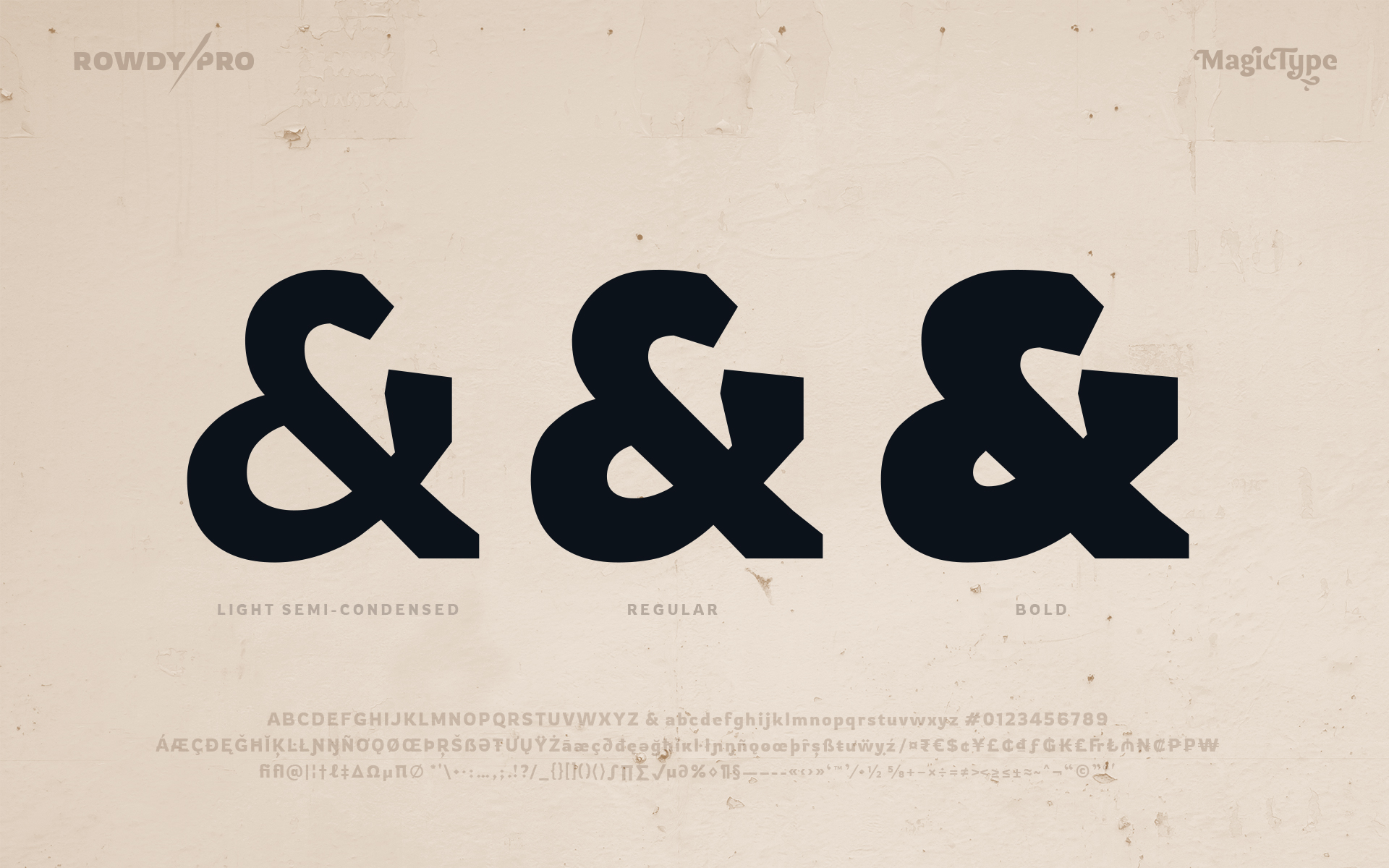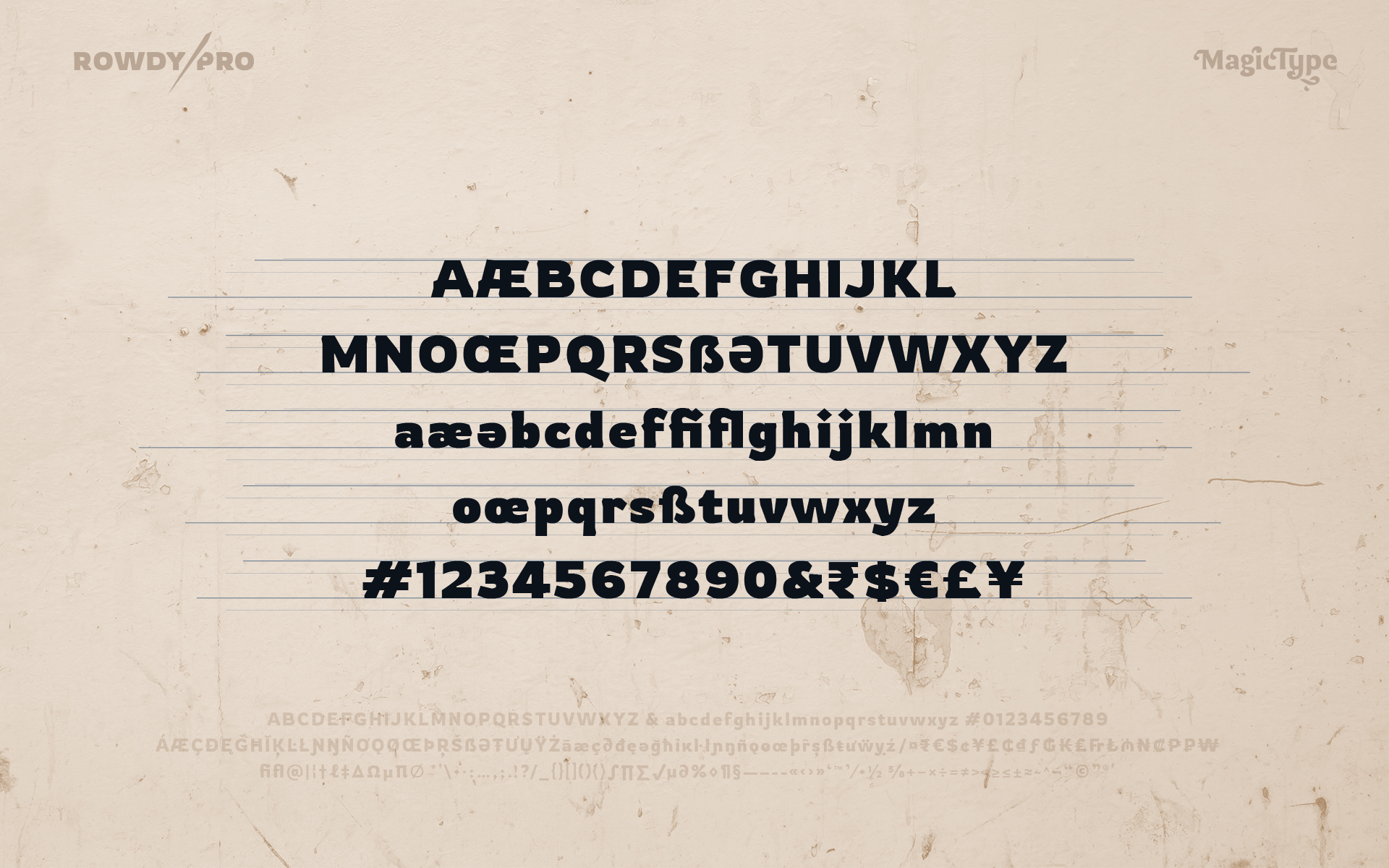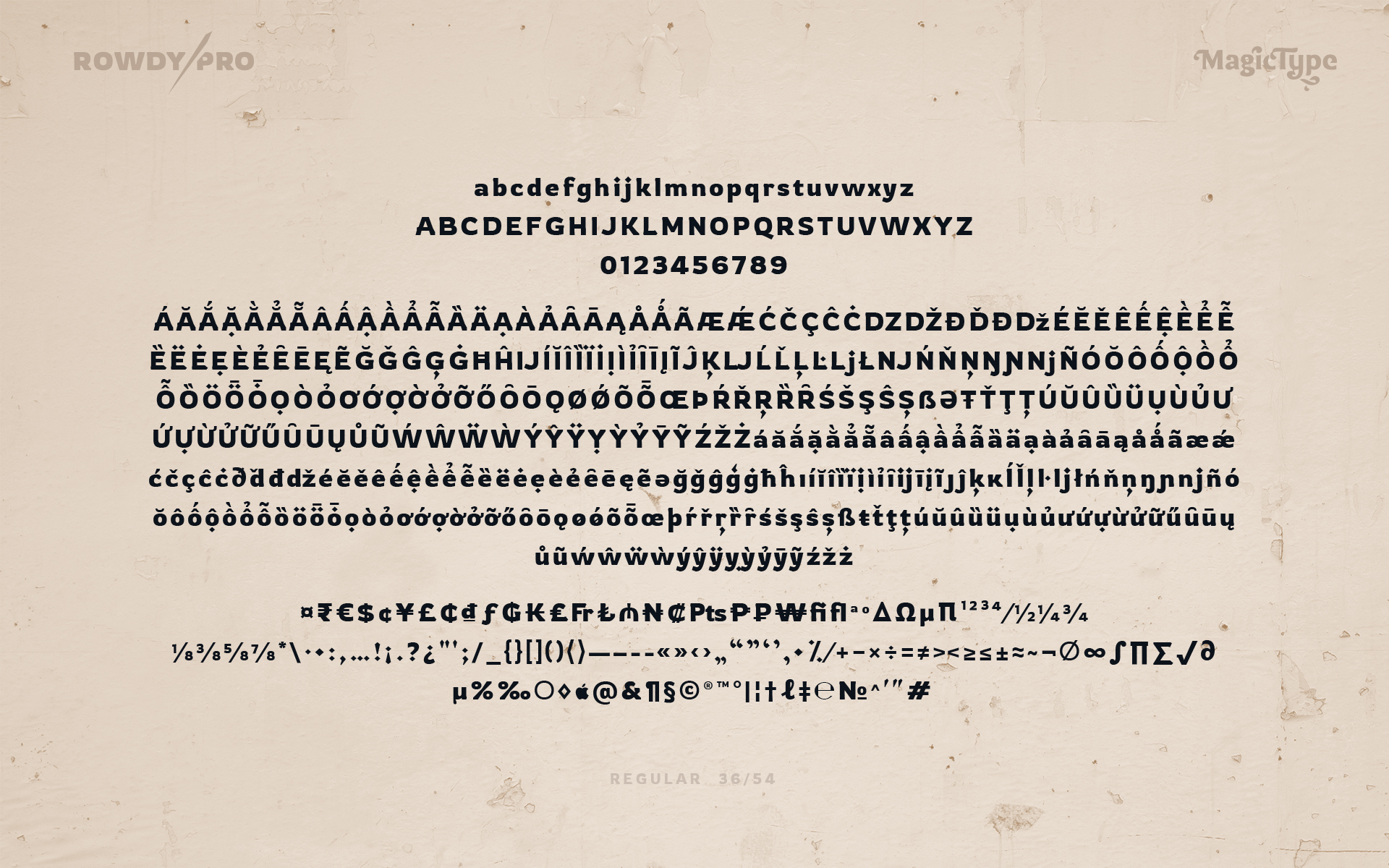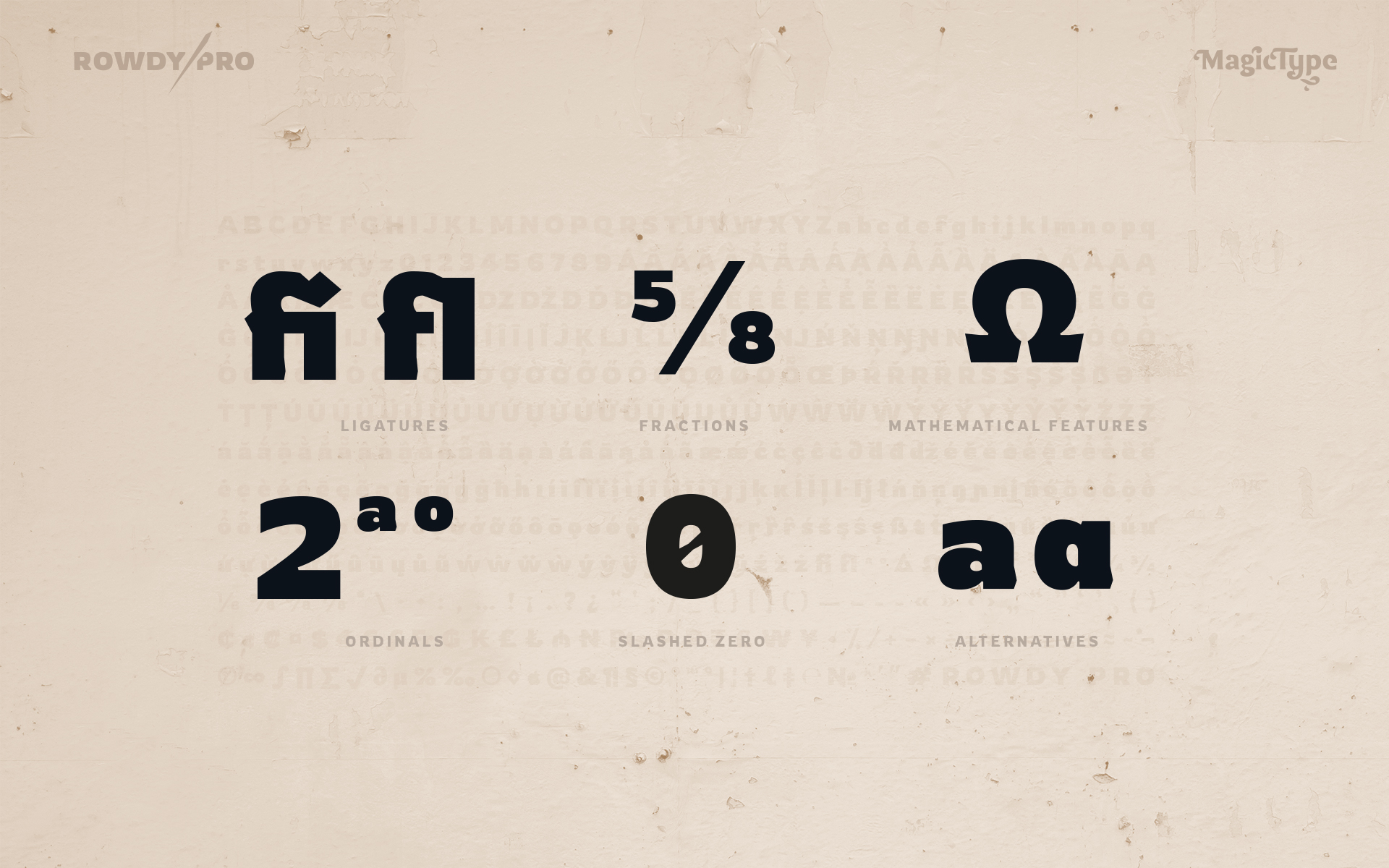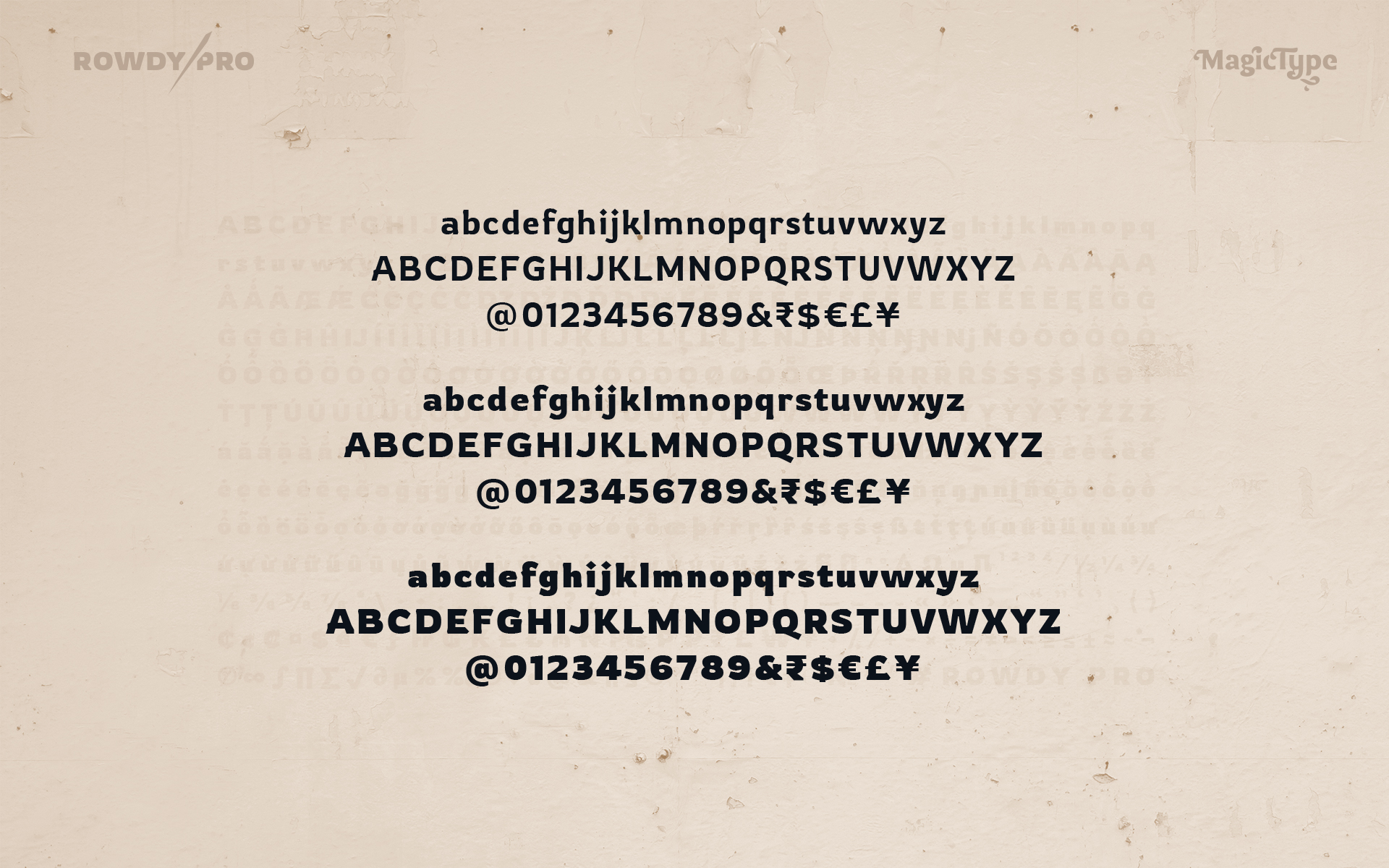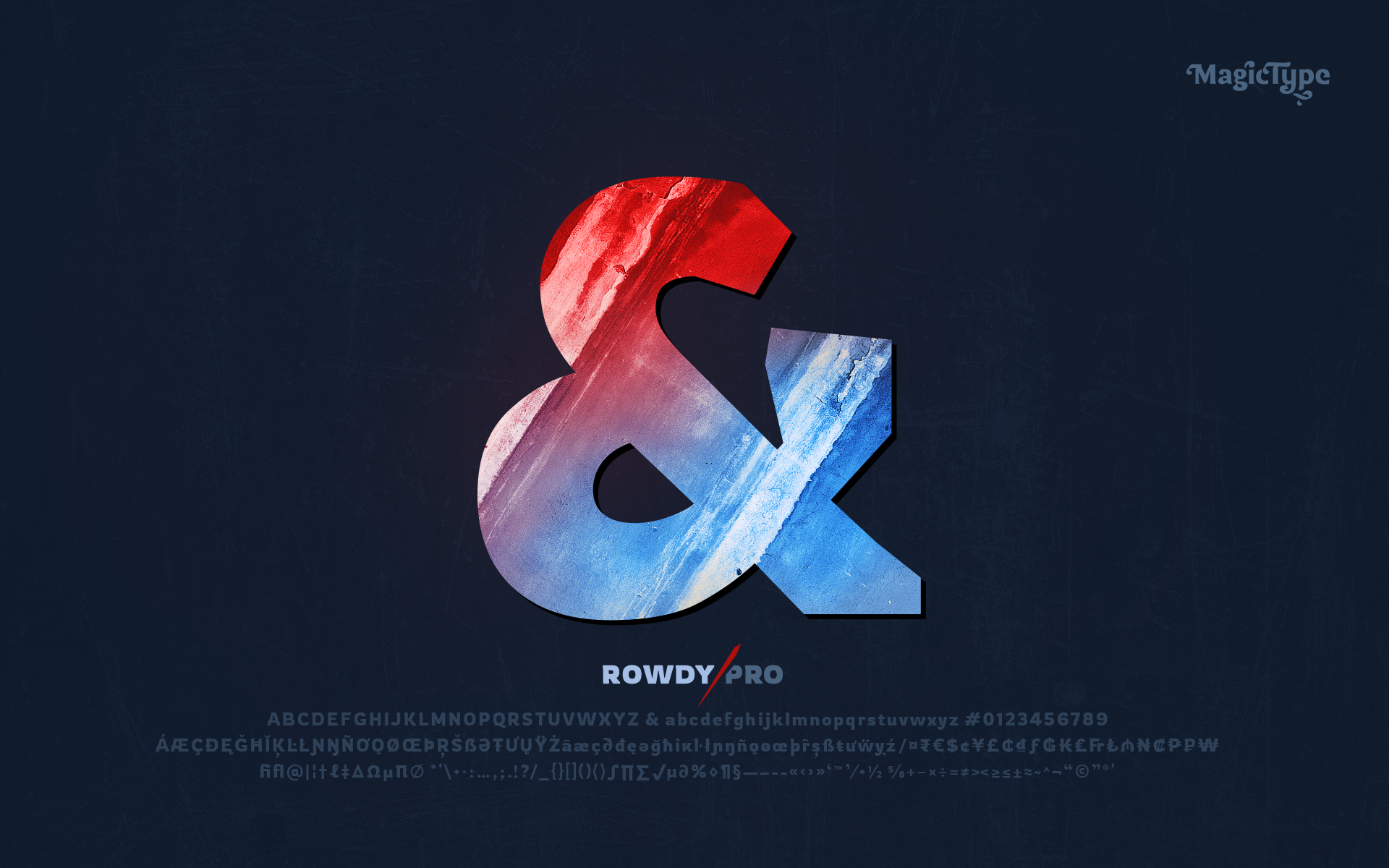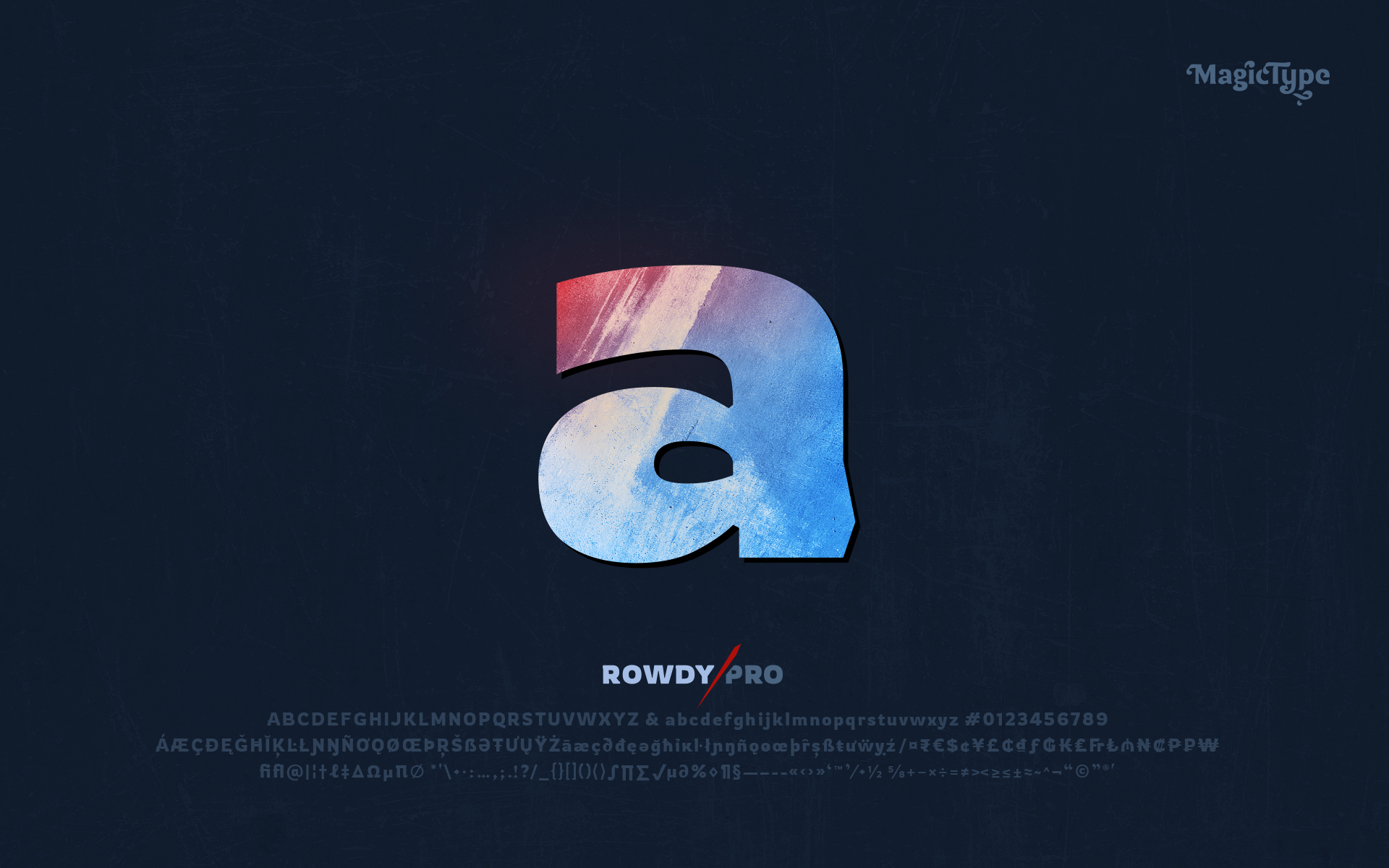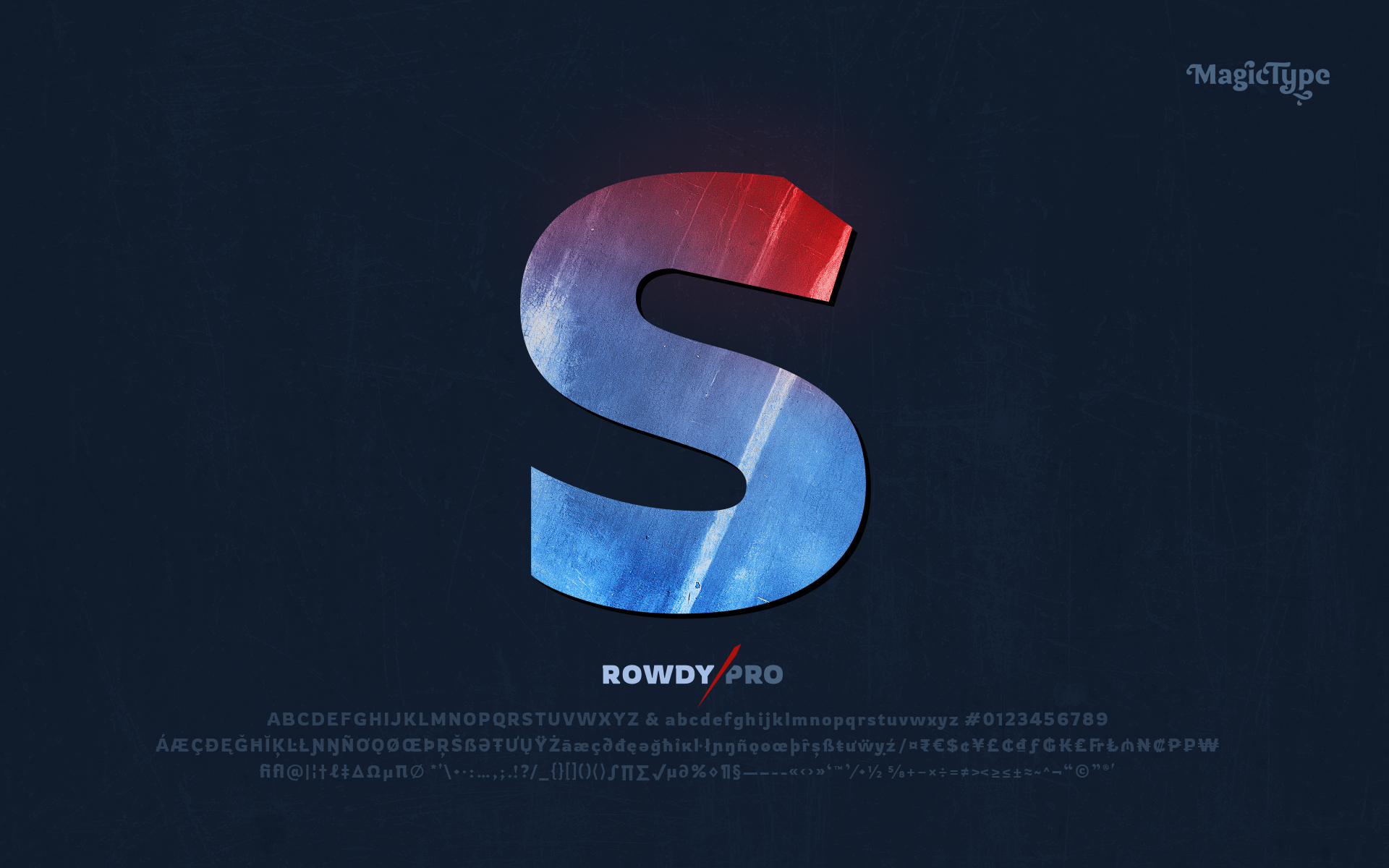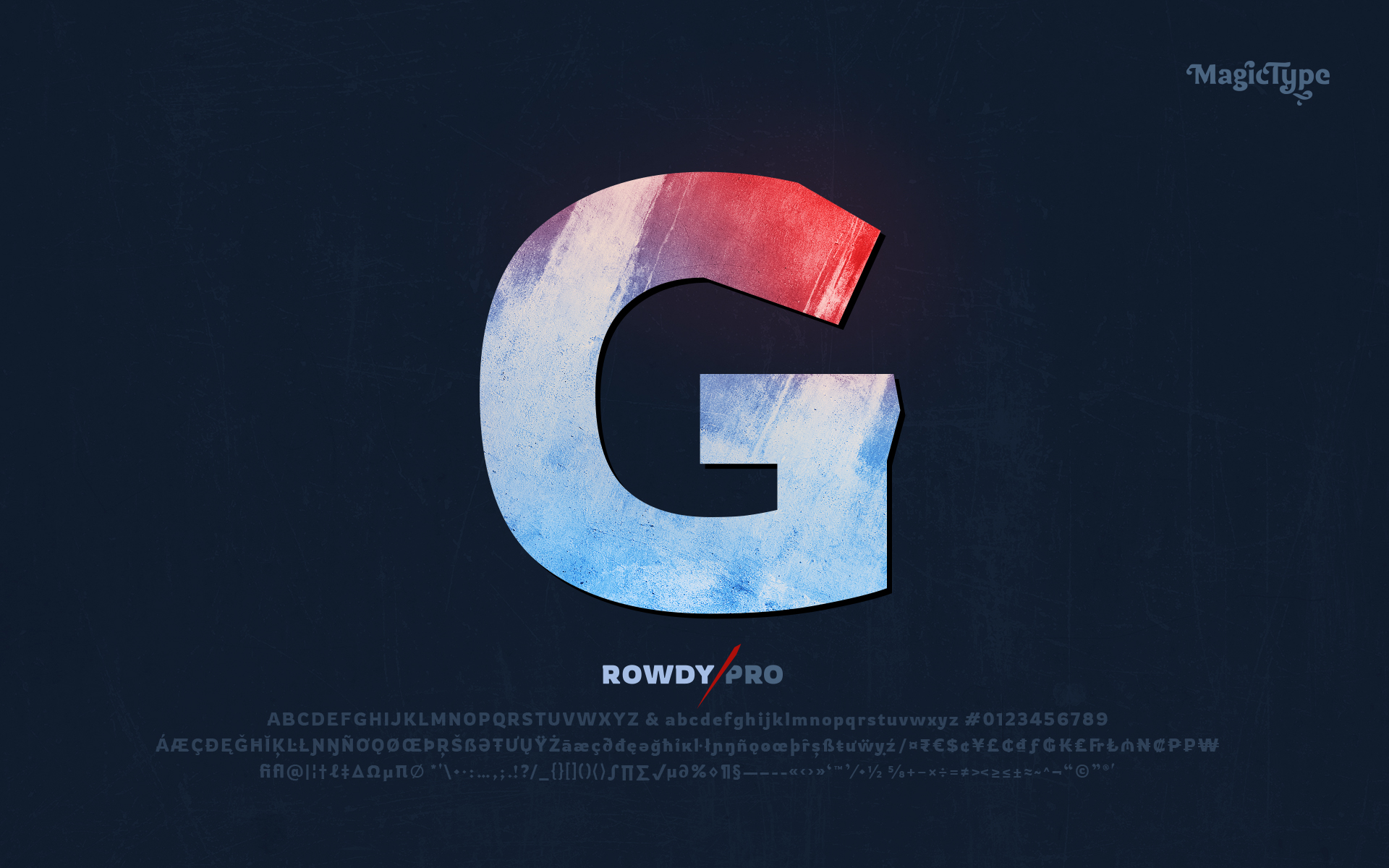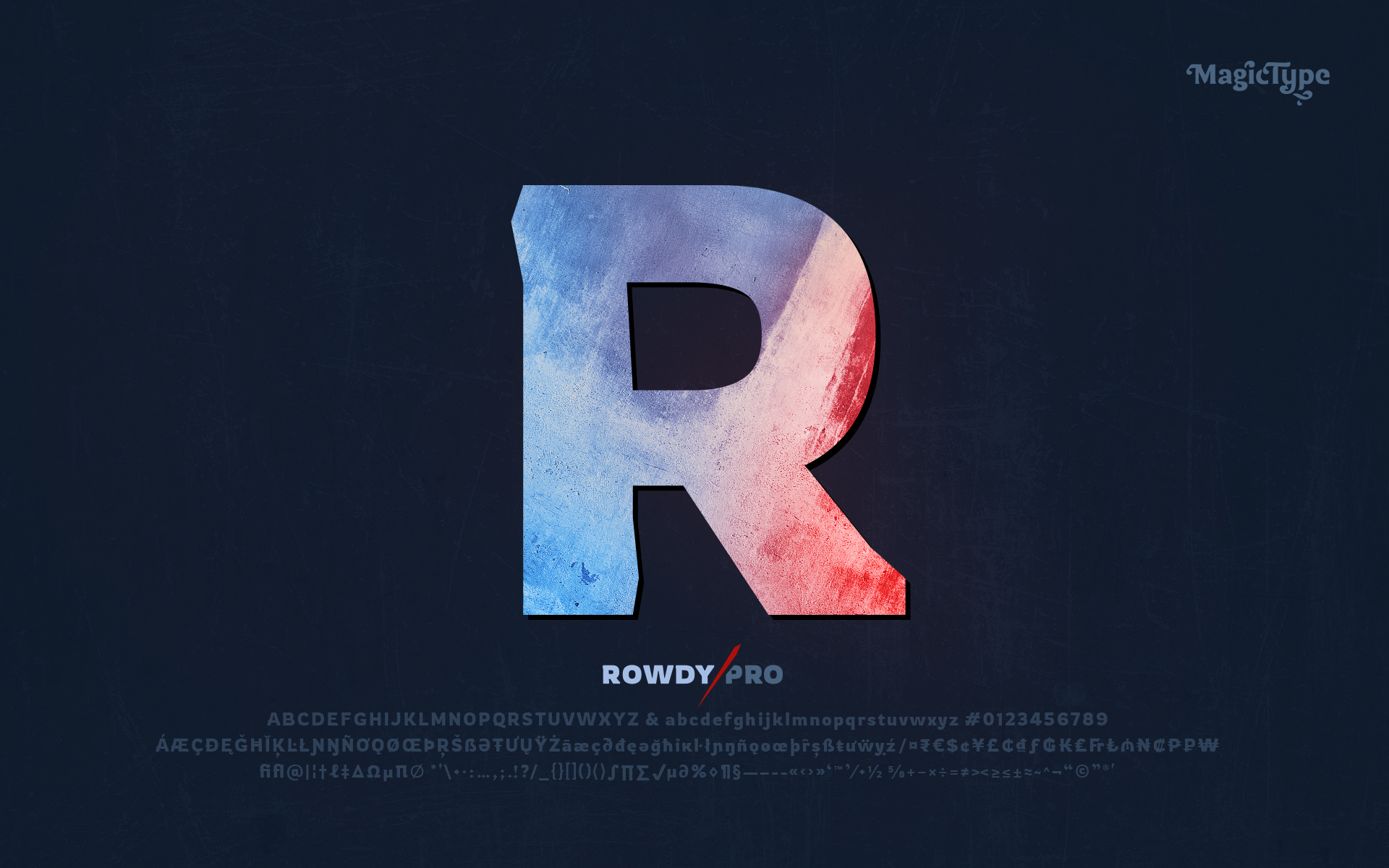
Rowdy Pro : Latin Display typeface in 3 weights
Designed by Jaikishan Patel
Meet Rowdy, a Latin display typeface inspired by the rough & tough Indian action cinema.
The action hero that stands out from the crowd. Typically belongs to a financially poor family background. Or maybe no background. “Being Rowdy is not just about being rough and tough. Firstly its to do with the fantasy of staying strong. It's my way of sophistication, probably overrated by myself. Being bold. Bold to be confident and fearless. To not easily get intimidated. And to stay resilient. I definitely don't mean to be rude or disrespectful to anyone. Every time I sense a glamour in me, I totally enjoy it. ” Rowdy says.
The Rowdy Pro font family includes 3 weights
Light (Semi-Condensed): designed to set supporting body-text with optimal glyphs width. Regular: designed for the large headers & titles. Bold: designed for extremely heavyweight title designs.
Rowdy is a Latin display typeface inspired by the rough & tough Indian action...